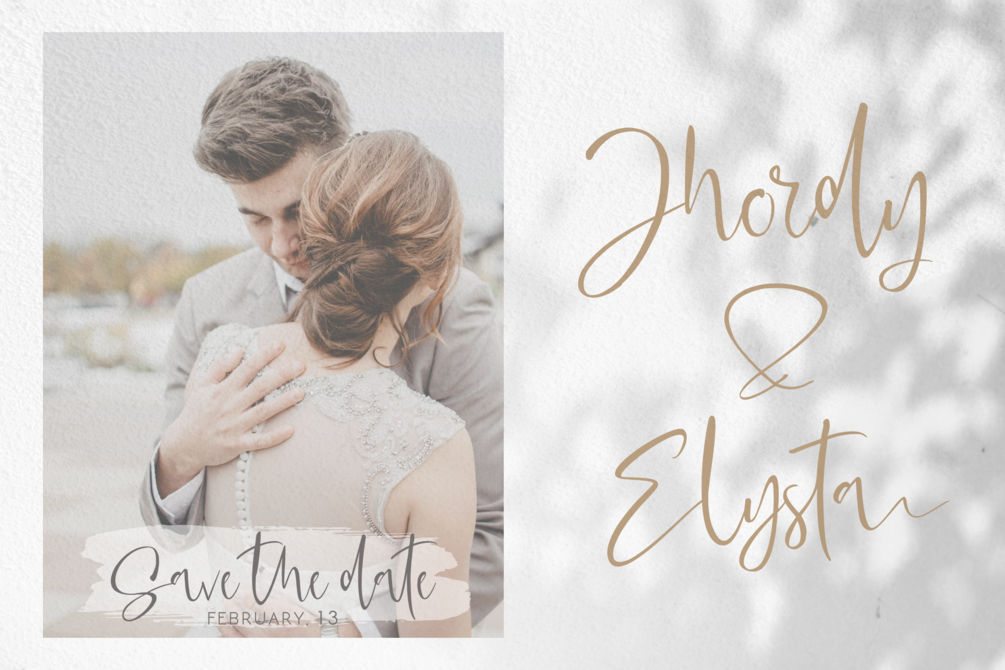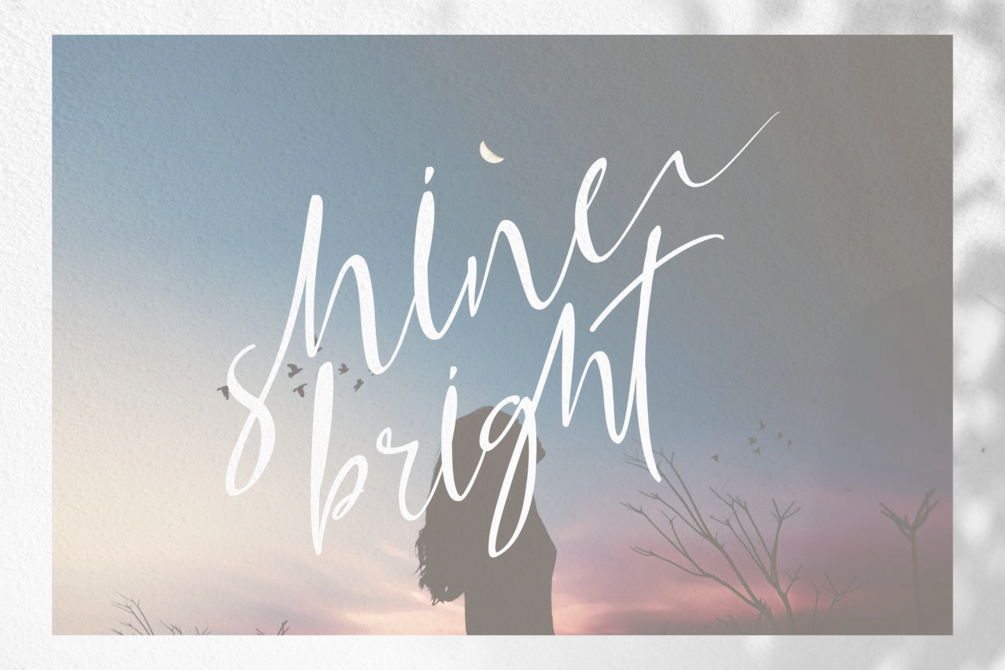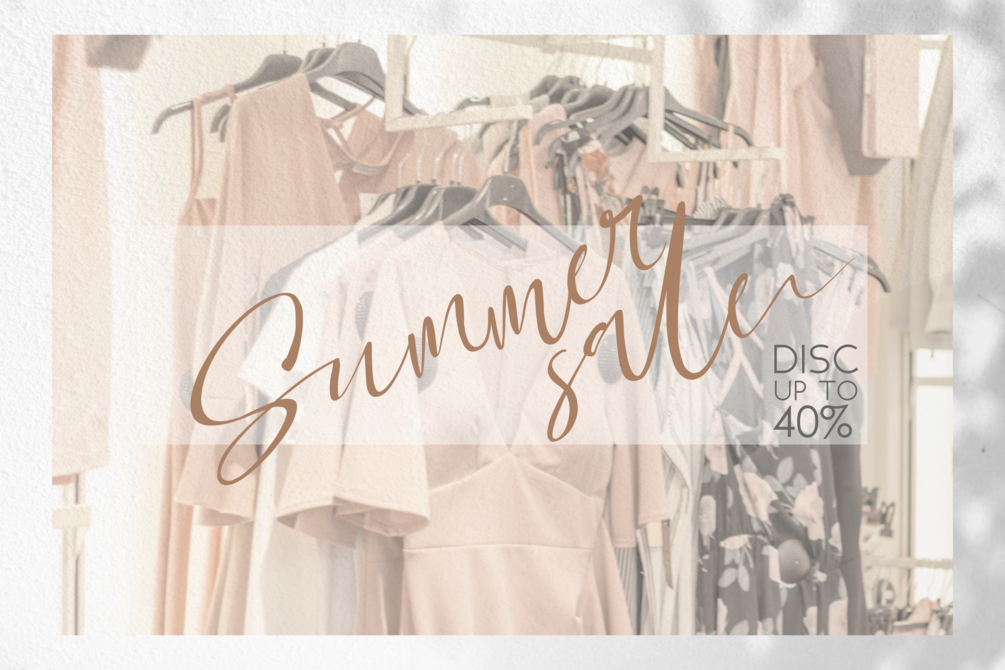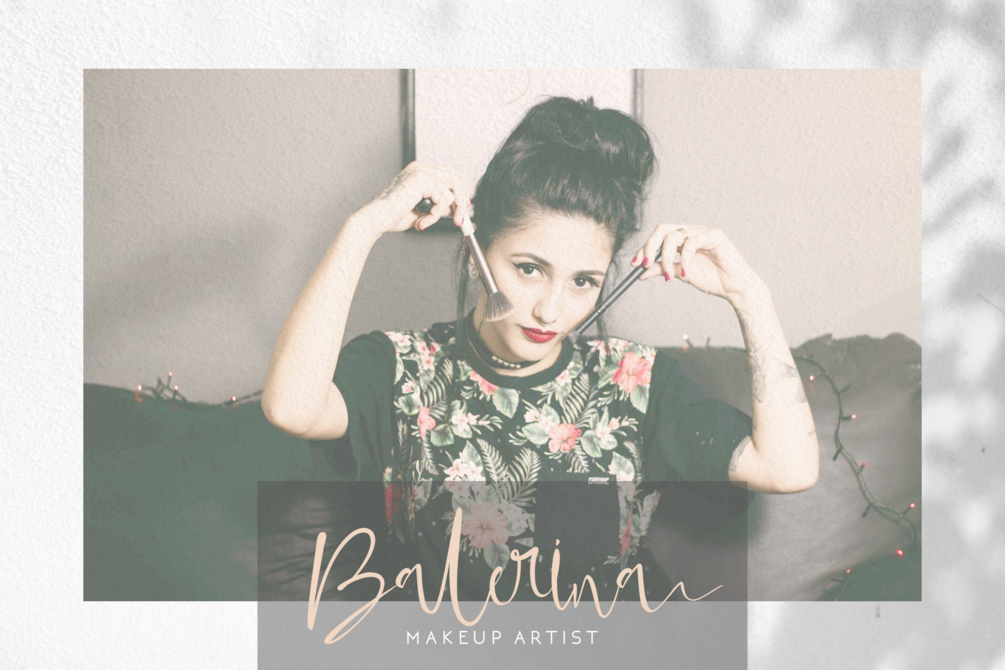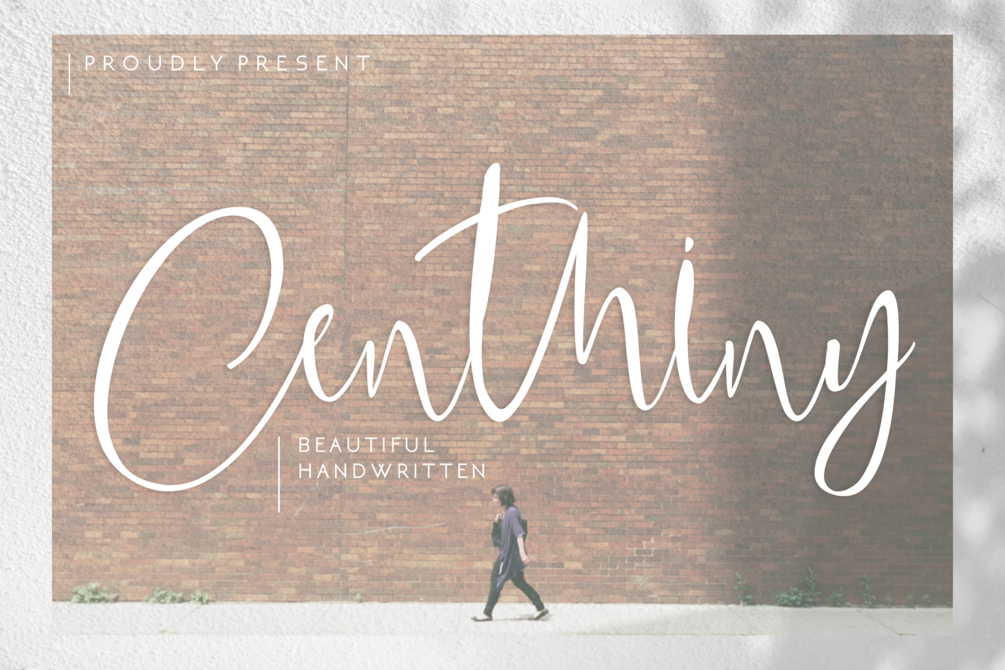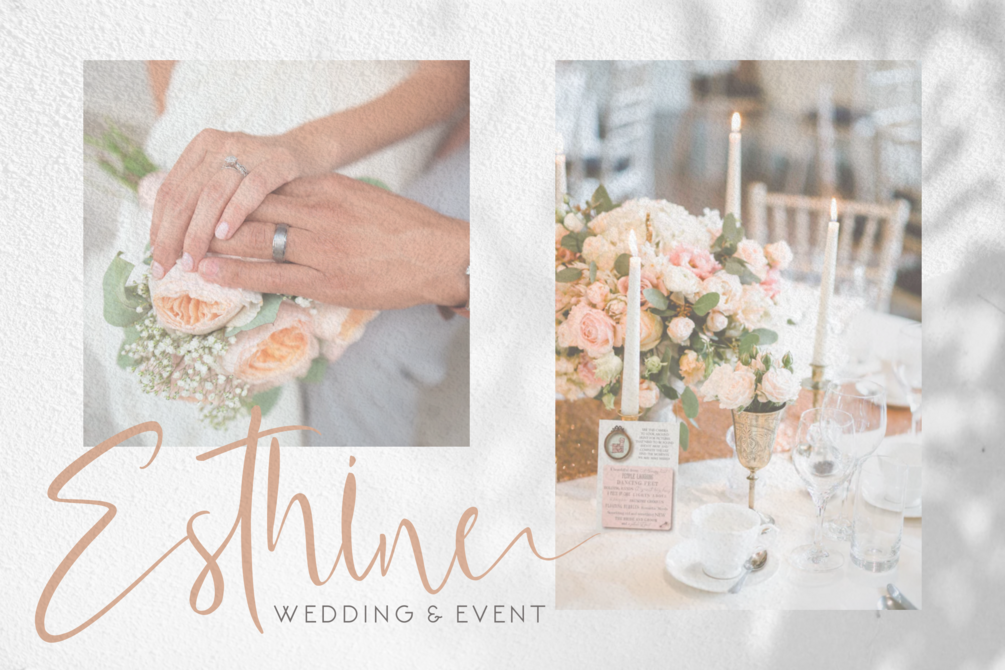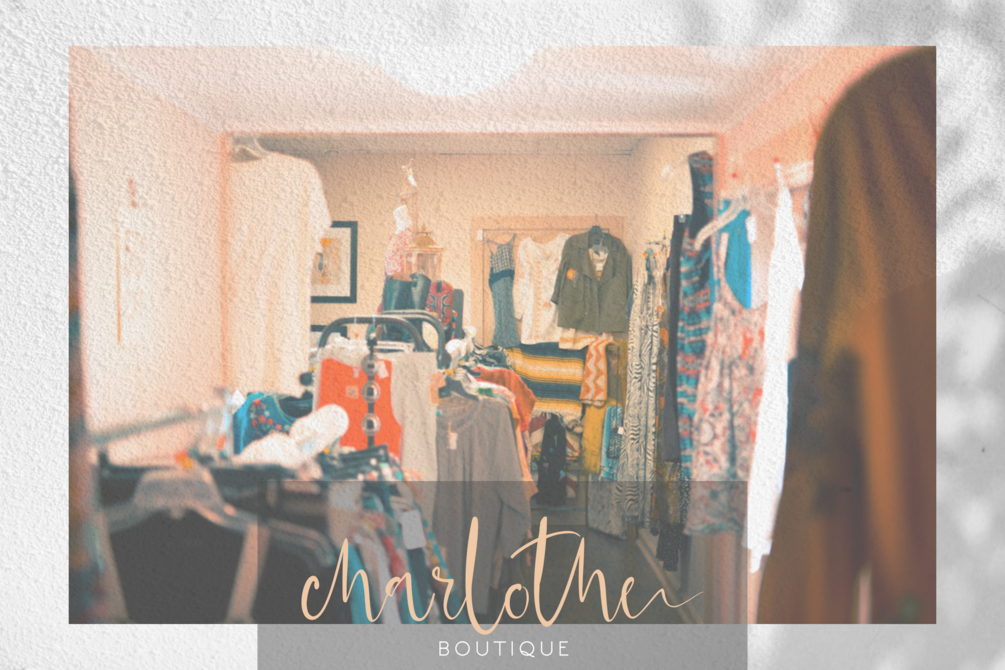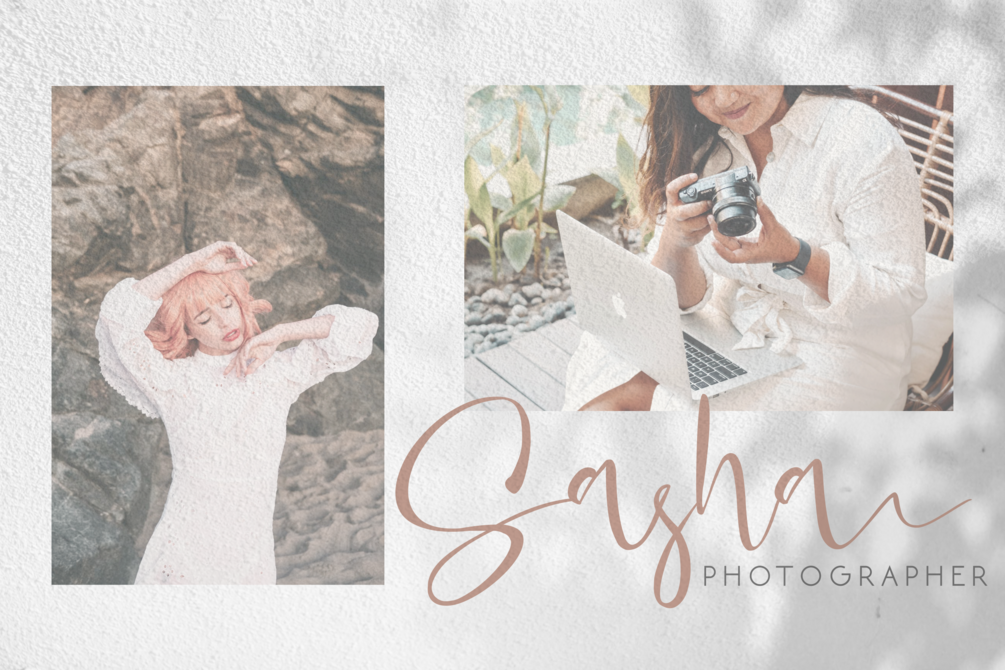
Centhiny Beautiful Handwritten
Centhiny is handwritten text with natural style & flow. Beautiful and luxurious fonts with natural hand scratches. This handwritten font is perfect for weddings, watermarks, branding, such as interviews, business cards, product logos, etc.
Centhiny is perfect for branding projects, logos, wedding designs, social media posts, advertisements, product packaging, product designs, labels, photography, watermarks, invitations, stationery, and any project that requires a sense of handwritten signature.